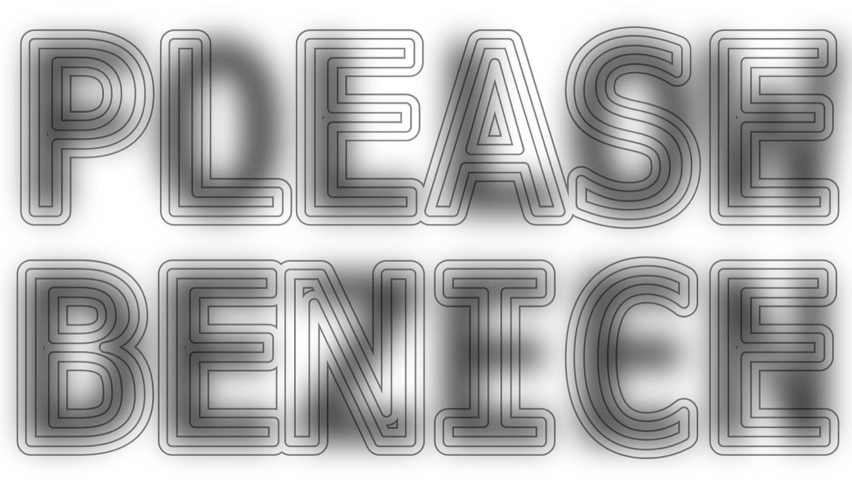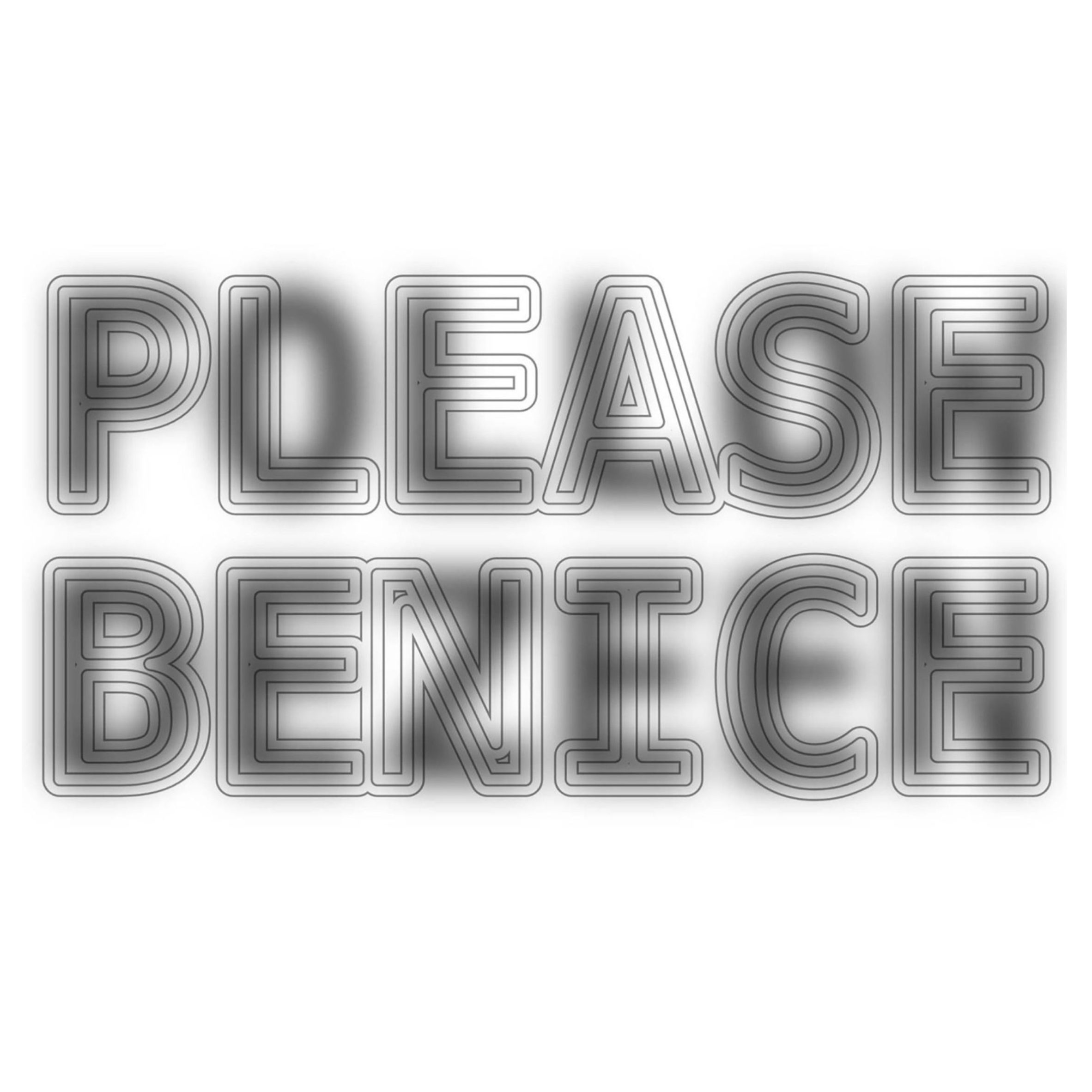
Dezeen Agenda features Decoy Font designed to trick AI
The latest edition of our weekly Dezeen Agenda newsletter features an optical illusion font designed to trick artificial intelligence chatbots into misreading messages. Subscribe to Dezeen Agenda now.
Created by Mixfont for those who want to avoid having their data scraped, Decoy Font features two layers of image – one in thin but clear outlines in the foreground, and another in blurry dark shapes in the background.